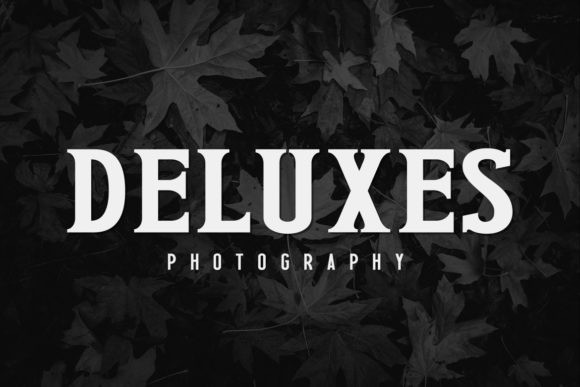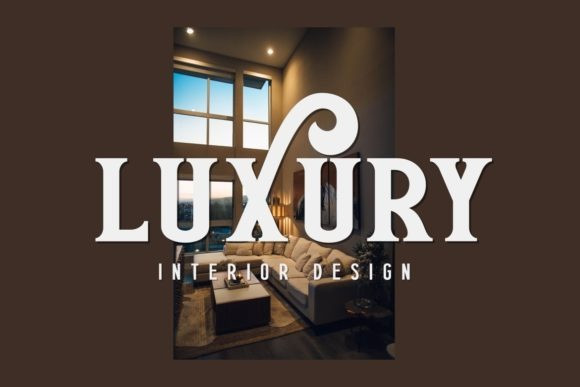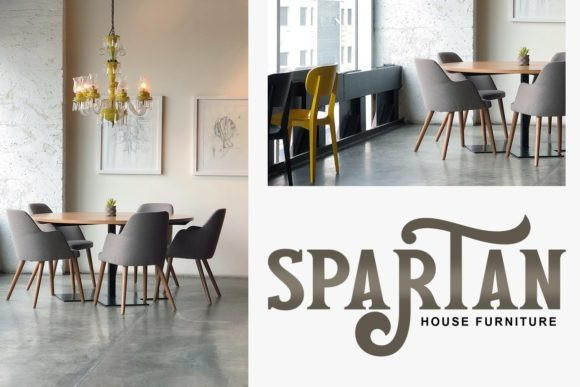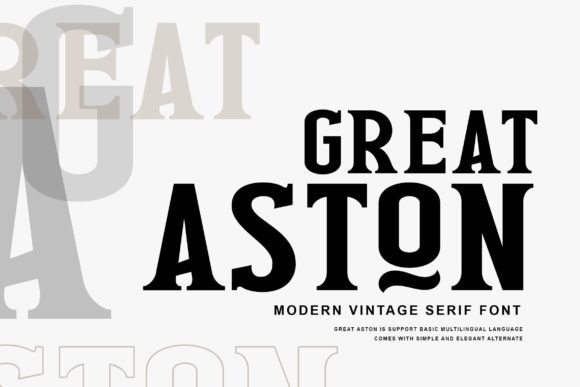
Great Aston Font
Great Aston Serif Font
It carries a bold weight and with it in highlight the main thing, make a title or logo and much more. It can easily be matched to an incredibly large set of projects like logos, packages, advertisement, magazines, and so much more. This font is PUA encoded which means you can access all of the glyphs and swashes with ease!